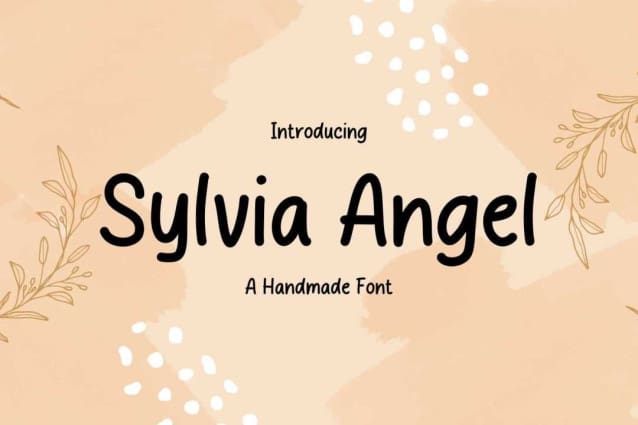
Sylvia Angel Font
Sylvia Angel Font, ideal for logos, handwritten quotes, product packaging, header, poster, merchandise, social media & greeting cards.